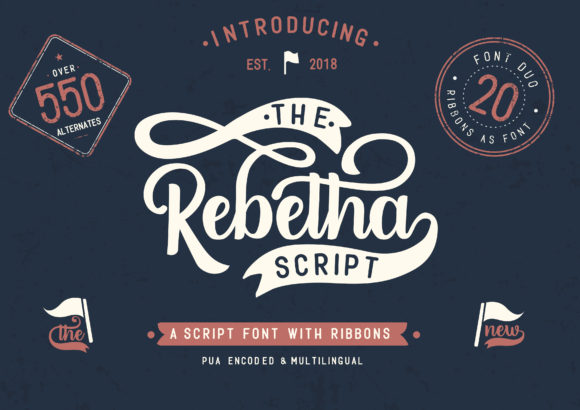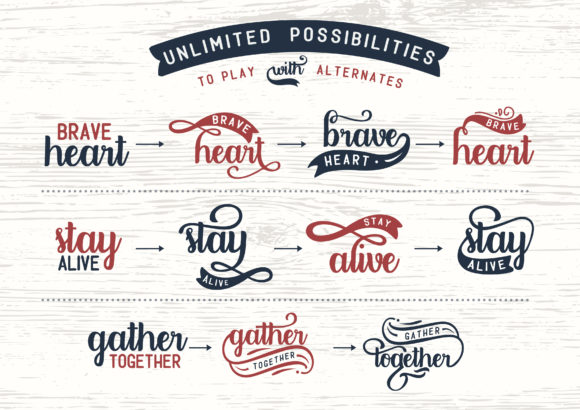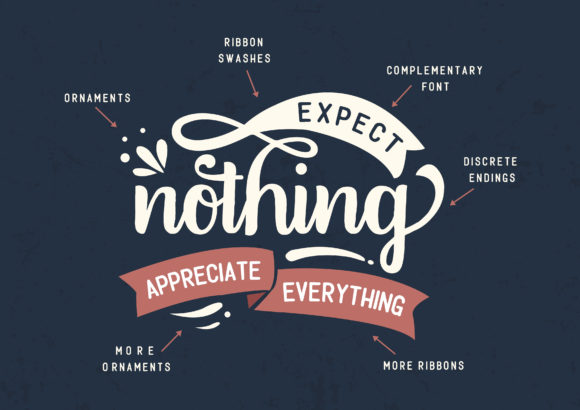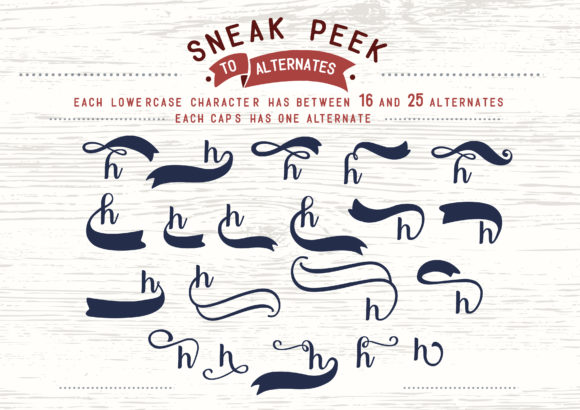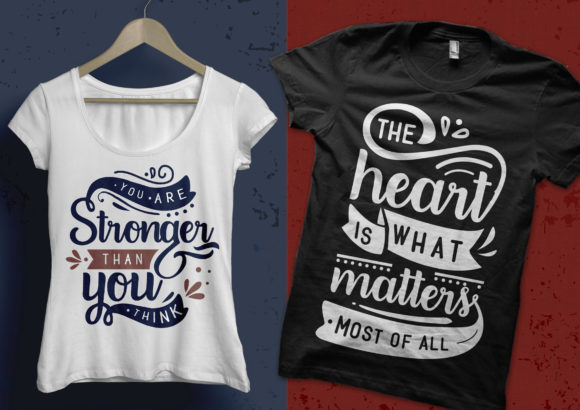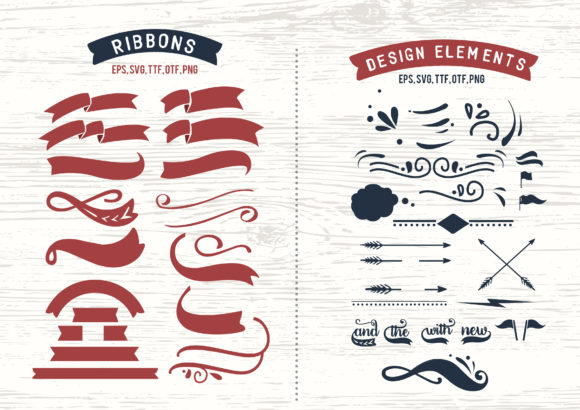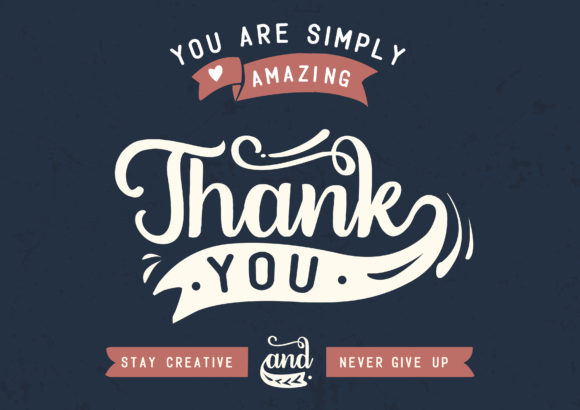
Rebetha Duo Font
About Rebetha Duo Font
The Rebetha Duo consists out of complementary script & sans serif combination.
On top of that, it also includes a stunning ornamental font with 20 ribbons and 20 ornaments.